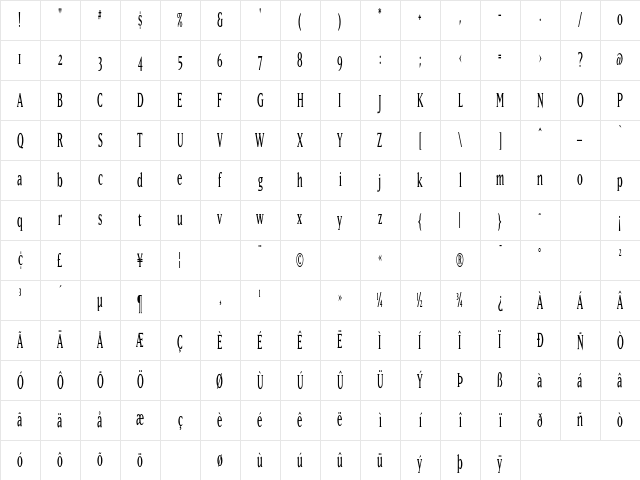
MatrixNarrowOldstyle Regular
Design Context for MatrixNarrowOldstyle
MatrixNarrowOldstyle carries the refined structure of traditional serif typography, with bracketed terminals and considered proportions that communicate credibility and craft. Its narrow stance lets it pack a punch even in space-constrained designs.